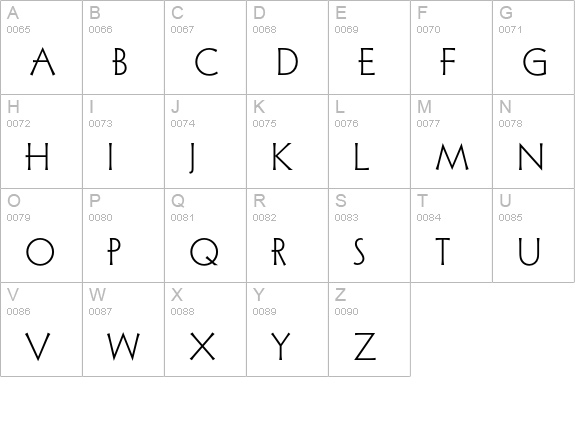
Wade Sans Light Std Font Details
Wade Sans Light Std is a refined, elegant variant in the Wade typeface family \xE2\x80\x94 well suited to elegant body text, refined sub-headings, and luxury branding.
Wade Sans Light Std is a sleek and modern font that effortlessly combines elegance with simplicity. With its clean lines and minimalistic design, this font is perfect for creating a contemporary and sophisticated look for any project. What sets Wade Sans Light Std apart is not only its stunning aesthetic, but also its accessibility. This font is freely available to download at FontsMarket.com, making it easily accessible to designers, creatives, and typographers alike. Whether you're working on a website, a branding project, or a print design, Wade Sans Light Std will elevate your work to new heights. Its light weight adds an airy and delicate touch to any composition, making it ideal for titles, headings, and captions. The legibility of the font ensures that your message will be conveyed with clarity and impact. The versatility of Wade Sans Light Std is another reason why it has become a favorite among designers. It seamlessly adapts to various design styles, effortlessly blending with both modern and traditional aesthetics. Its subtle curves and precise geometry create a harmonious balance, resulting in a font that is both visually appealing and highly functional. Whether you're a seasoned designer or just starting out, Wade Sans Light Std is a must-have in your font collection. Its free availability at FontsMarket.com makes it even more enticing, allowing you to explore its endless possibilities without any financial constraints. Experience the elegance and versatility of Wade Sans Light Std today. Download it for free at FontsMarket.com and unlock the potential to create stunning and impactful designs.